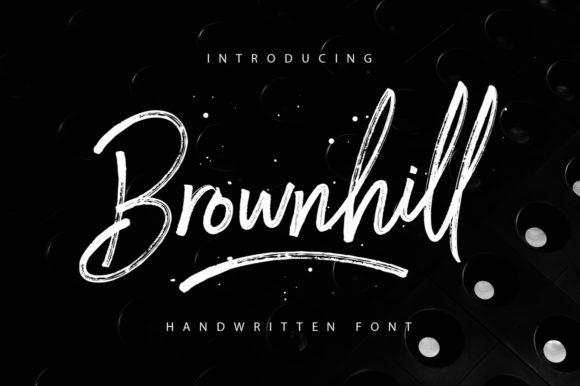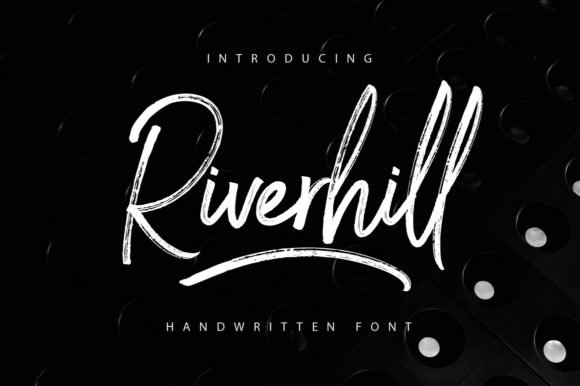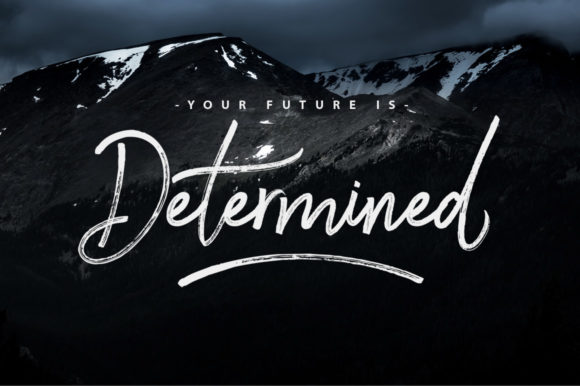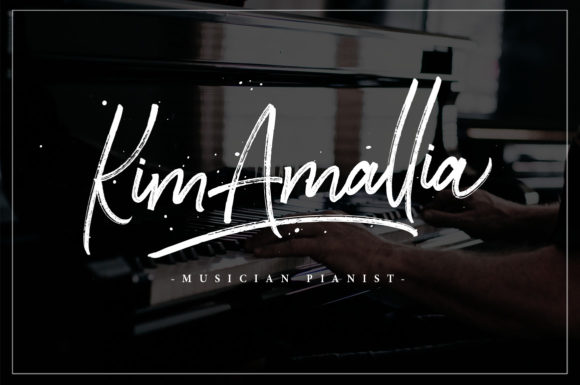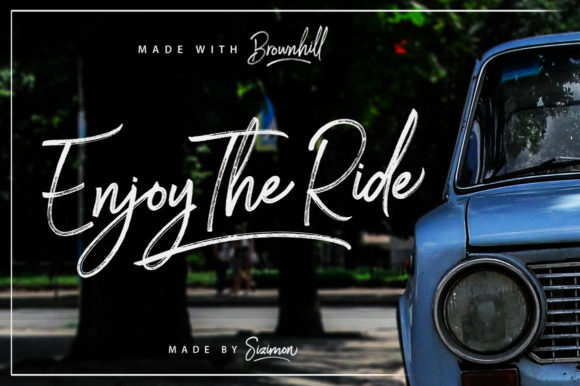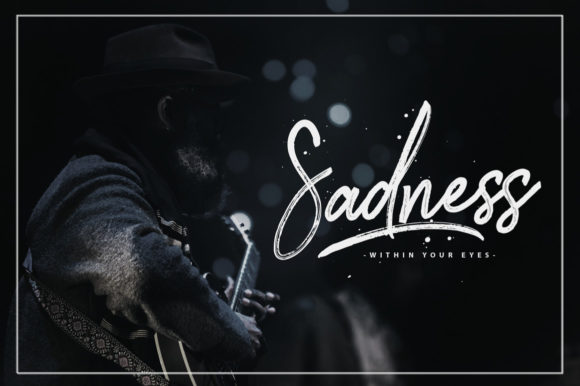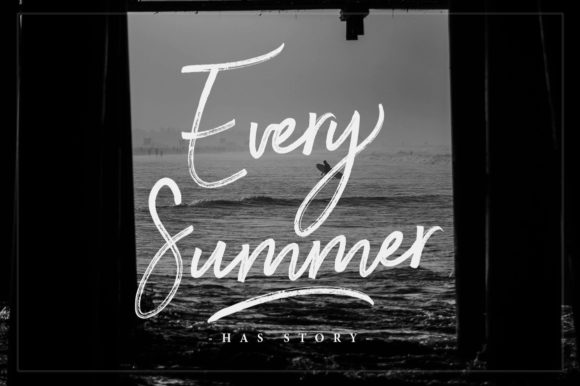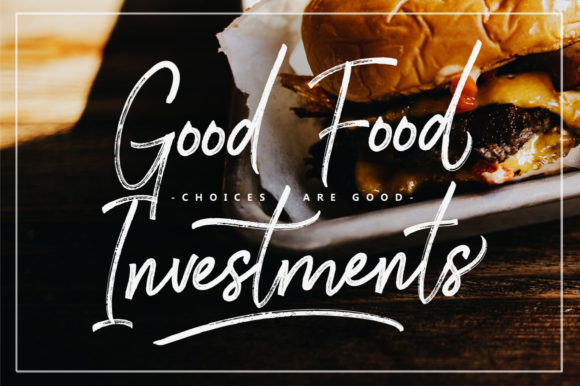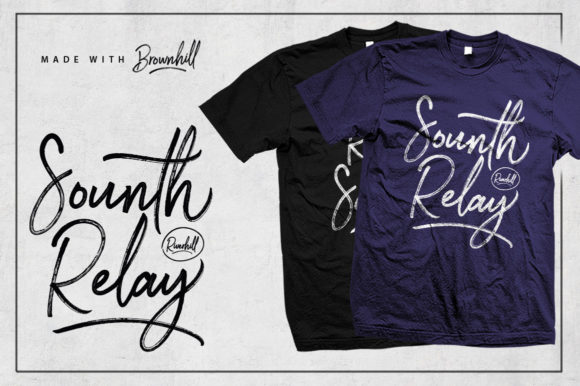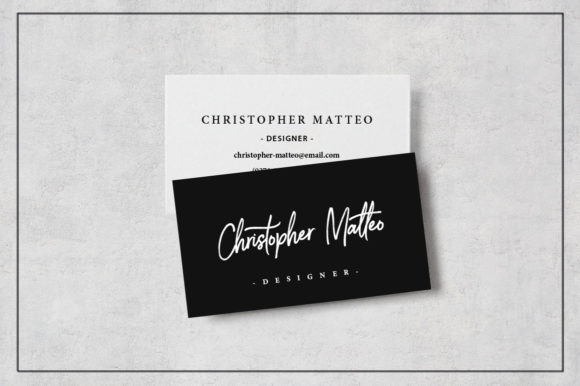
HomeScript FontsBrownhill Font Script Fonts Brownhill Font FacebookXPinterestWhatsApp Brownhill Font Poster 2 Brownhill Font Poster 3 Brownhill Font Poster 4 Brownhill Font Poster 5 Brownhill Font Poster 6 Brownhill Font Poster 7 Brownhill Font Poster 8 Brownhill Font Poster 9 Brownhill Font Poster 10 About Brownhill Font Brownhill is a bold and cool script font with a distinctly authentic look! DOWNLOAD ON CREATIVE FABRICAThis font is sold and delivered by Creative Fabrica. Font Canyon may earn a commission if you buy through this link. People also explored Black Heather Triblend Bella Canvas 8413 Setter Font Christmas Market Font Somalia Font Tattoo Studio Font Barussa Font Parsley Font Little Giant Font Nathallis Font 291 0 TagsBrownhill Font Previous articleSintesa FontNext articleJasmine Script Font LEAVE A REPLY Cancel reply Comment: Please enter your comment! Name:* Please enter your name here Email:* You have entered an incorrect email address! Please enter your email address here Website: Save my name, email, and website in this browser for the next time I comment. Personal Use Free Leorio Personal Use Free Read more about this font Wordan Personal Use Free Read more about this font Yumail Personal Use Free Read more about this font Fontmageddon Personal Use Free Read more about this font BLOG Best Fonts for YouTube Videos: Make Your Thumbnails Stand Out Best Fonts for YouTube Videos: Make Your Thumbnails Stand Out Choosing the right font can make a massive difference in how your YouTube videos perform.... Free Fonts Risk: Why Free Fonts Can Be Dangerous for Designers To increase your work productivity, choose the most readable fonts. Free vs Paid Fonts: Why Investing in Premium Fonts Is Worth It